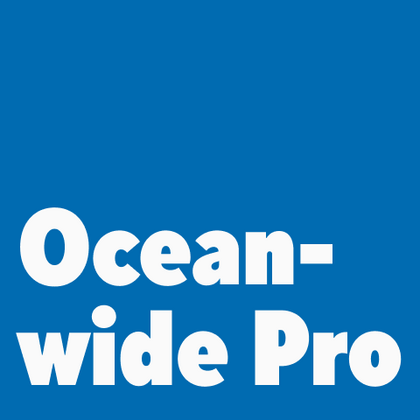
Fonts similar to Oceanwide Pro
The TypeType collection features modern fonts that can replace Oceanwide Pro in your projects if you’re looking for something new. Our typefaces were created as independent products but are suitable for the same tasks. Alternatives from TypeType are ideal for tourism branding, advertising resort areas, packaging design, or travel websites.
If you are tired of overused typefaces and are looking for fonts similar to Oceanwide Pro, check out our best free-to-try Oceanwide Pro alternatives, which have similar characteristics as well as new, unique design features. Some of the fonts belong to the same type category, and others are suitable for the same tasks or have similar traits but stand out for their distinct details or proportions.
Find a great Oceanwide Pro replacement font and try to recreate a similar mood and capture the feeling you aim for by using it in your designs. Each font presented on this page is a twin of the Oceanwide Pro font, practically identical to it.
TT Firs Neue is a contemporary reincarnation of the good old TT Firs sans serif.
TT Paplane is a squared-looking display sans serif.
TT Travels Text is a geometric grotesque with wide proportions and specific shapes of circles and fillets, which includes two stylistic sets with completely different natures.
TT Norms® Pro is a typographic legend embraced by world-renowned brands. Evolved through multiple iterations, it has conquered MyFonts and redefined typographic versatility. A design workhorse that transforms from a humble tool to an essential creative companion.
TT Commons™ Pro is the studio’s typographic powerhouse. A font so versatile it defies categorization, seamlessly bridging style and function. For designers seeking a universal foundation that elevates every project, this is the definitive choice.
TT Hoves Pro is a Scandinavian sans serif that whispers minimalist elegance. Simultaneously understated and distinctive, it’s a designer’s secret weapon that transforms complex challenges into visual poetry with effortless precision.
TT Supermolot Neue is a game-changer in visual communication! An advanced, modular sans serif that captures the pulse of technological innovation, bringing electrifying vision to everything from immersive game interfaces to bold visual narratives.
TT Firs Neue is a balanced sans serif infused with Scandinavian design philosophy. Elegant and versatile, polished through two deliberate revisions to achieve typographic perfection.
TT Rounds Neue is a soft and friendly font that knows how to be different. In lighter font styles it looks minimalist and neutral. The bold font styles make it puff up and achieve maximum roundness, exuding childlike charm.
TT Fors is a design Swiss Army knife of typography. This geometric sans serif delivers pure versatility through clean, refined proportions. It can be used for defining interfaces or crafting visual accents.
TT Ramillas is a stylish and contemporary serif that elevates design to an art form. Characterized by its unique decorative styles and initials with a floral ornament, it crafts visual experiences that are truly one-of-a-kind. Already adorning over 3000 websites globally, it’s a Modern Cyrillic award-winner that redefines typographic sophistication.
TT Wellingtons is an attempt to combine the style of English humanist sans serifs of the early 20th century with the requirements for modern geometric grotesques.
TT Autonomous is a modern techno sans serif with wide angular proportions.
TT Alientz is a variable typeface that allows the user to make a visual journey from an extraterrestrial grotesque to a very prickly display serif.
TT Prosto Sans is a font family for any tasks. You can use this font almost everywhere.